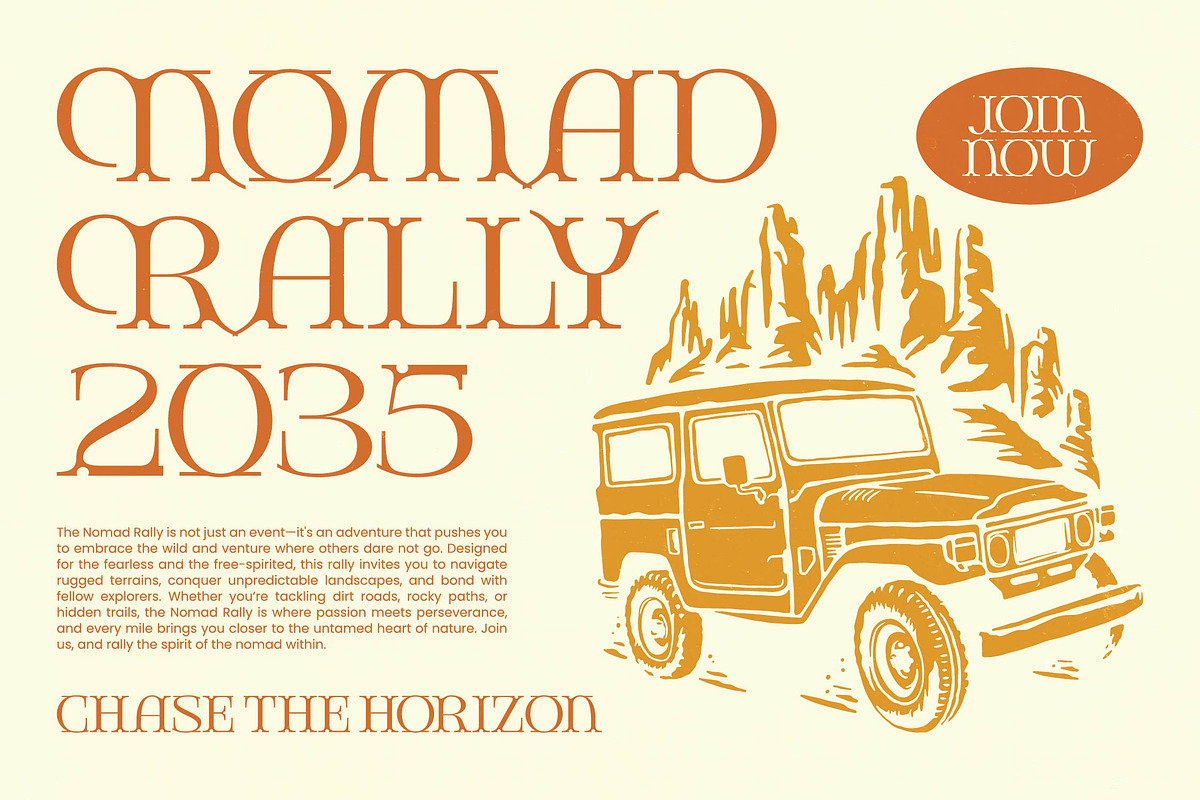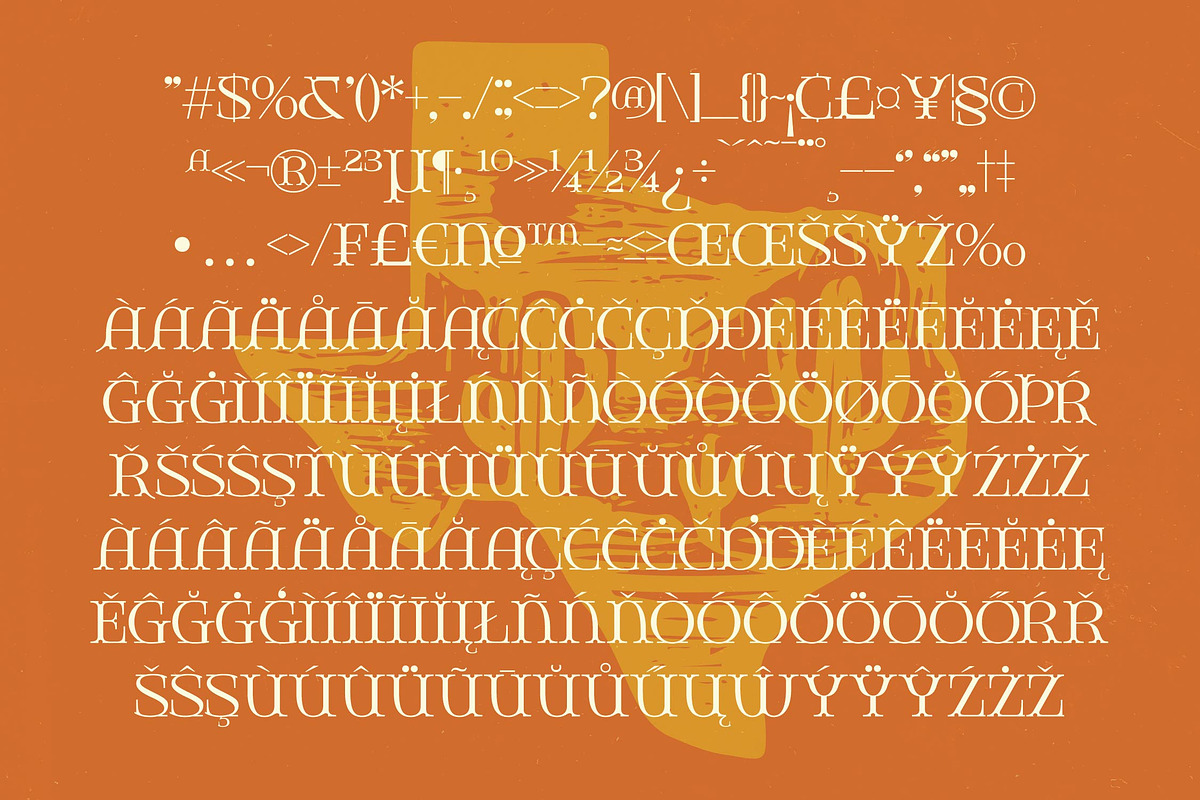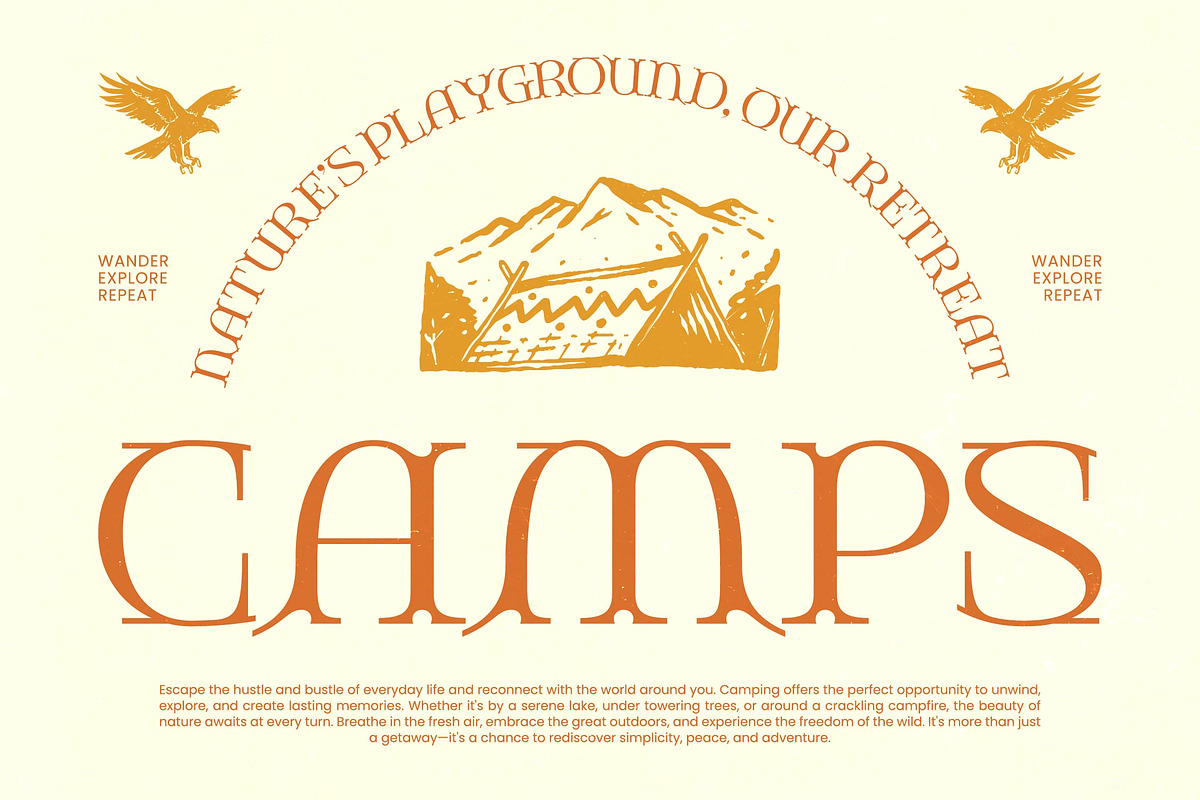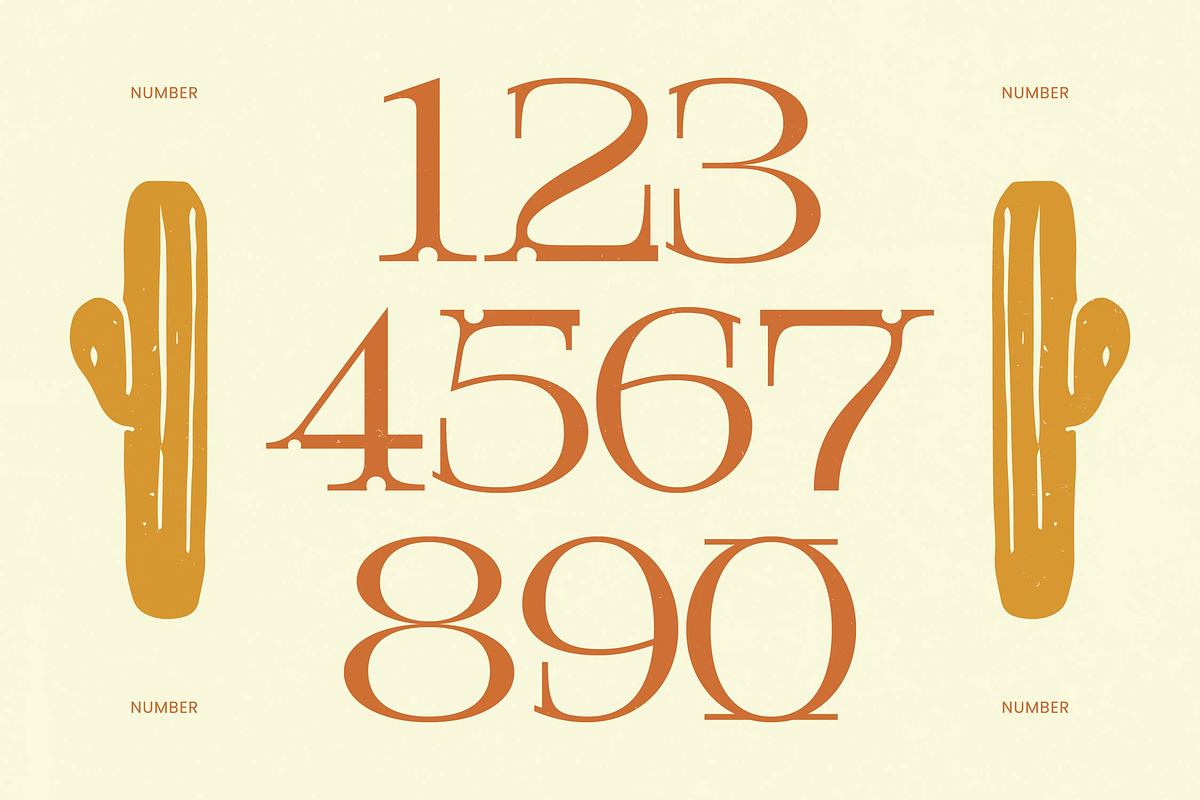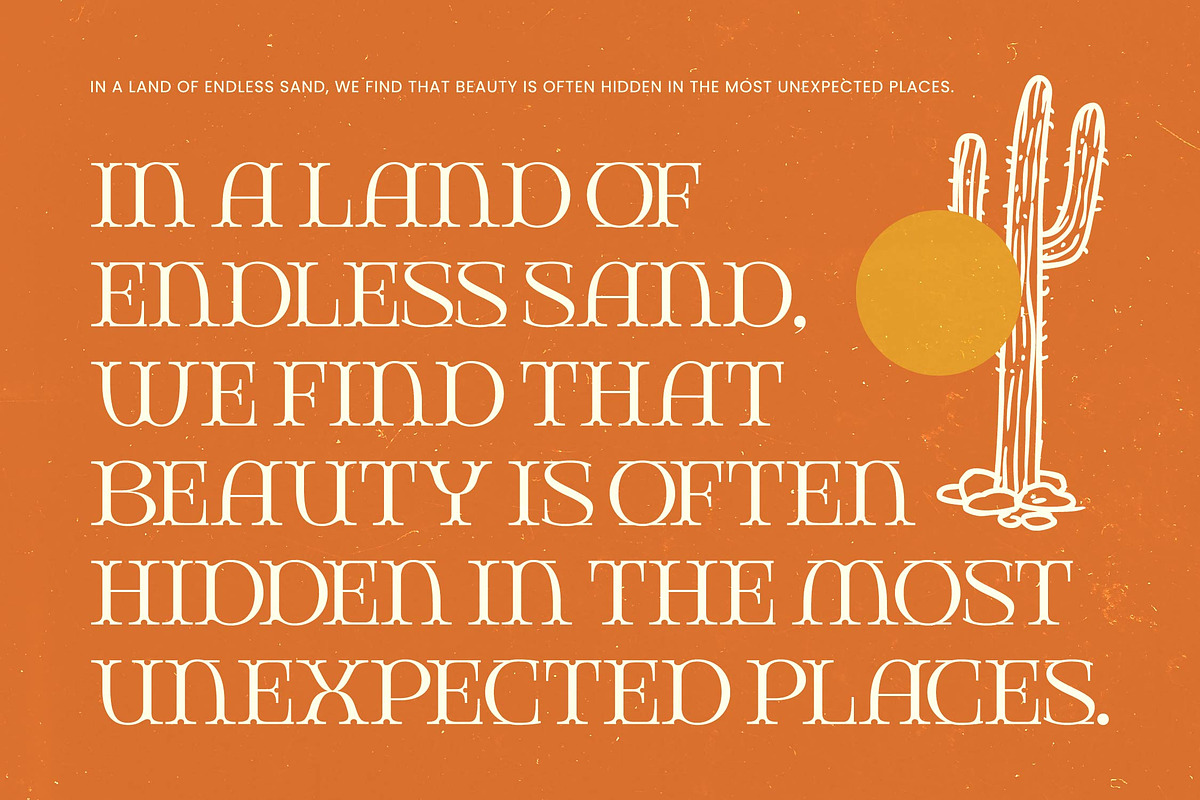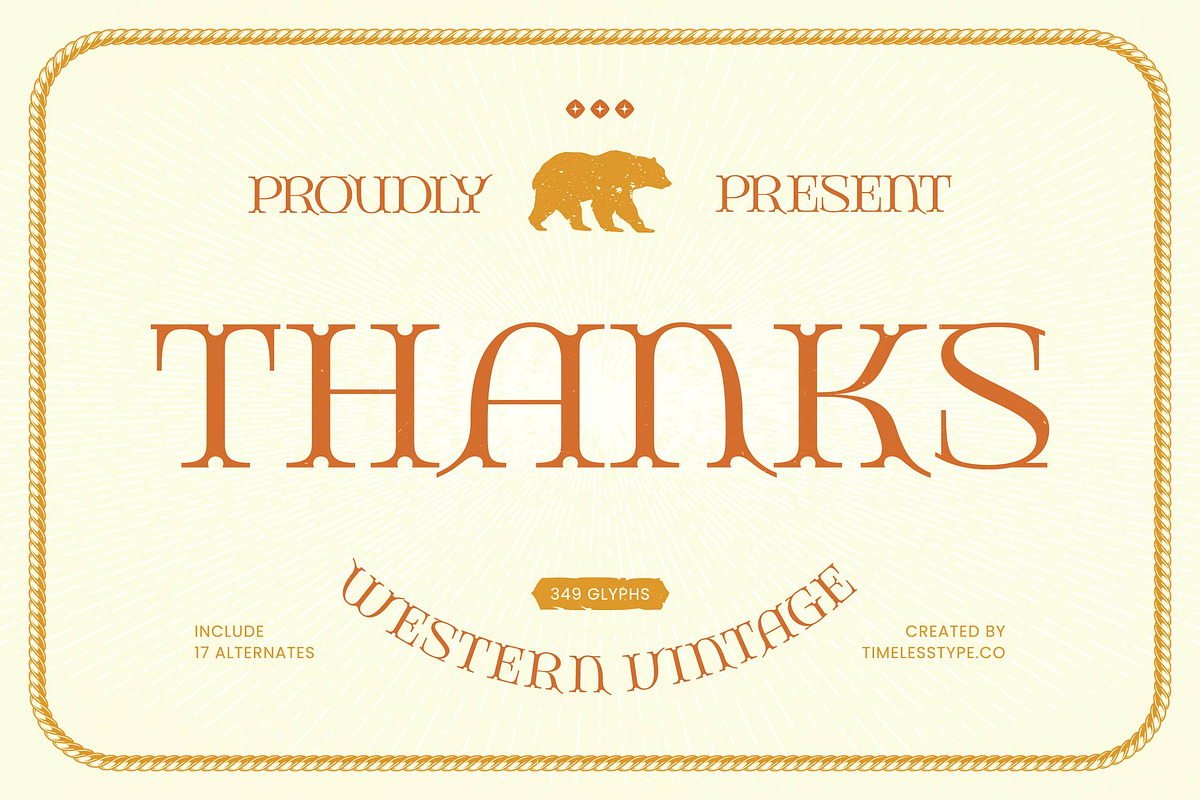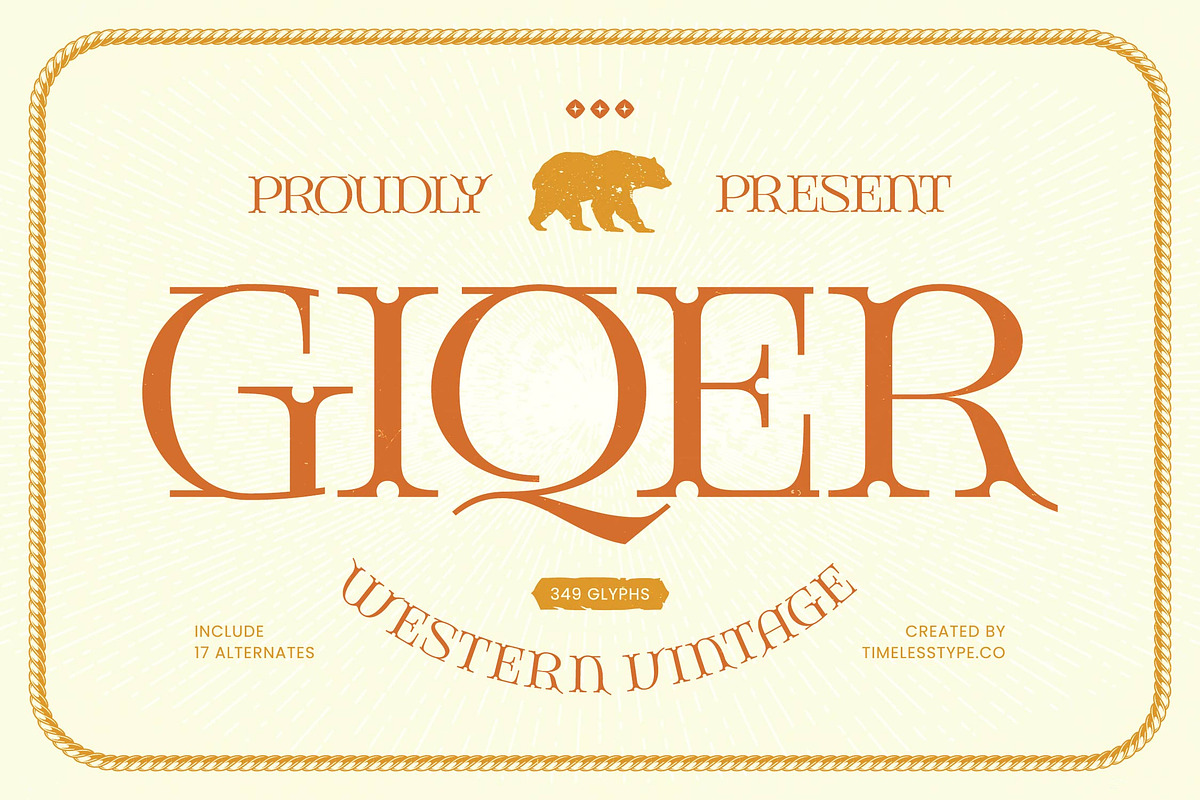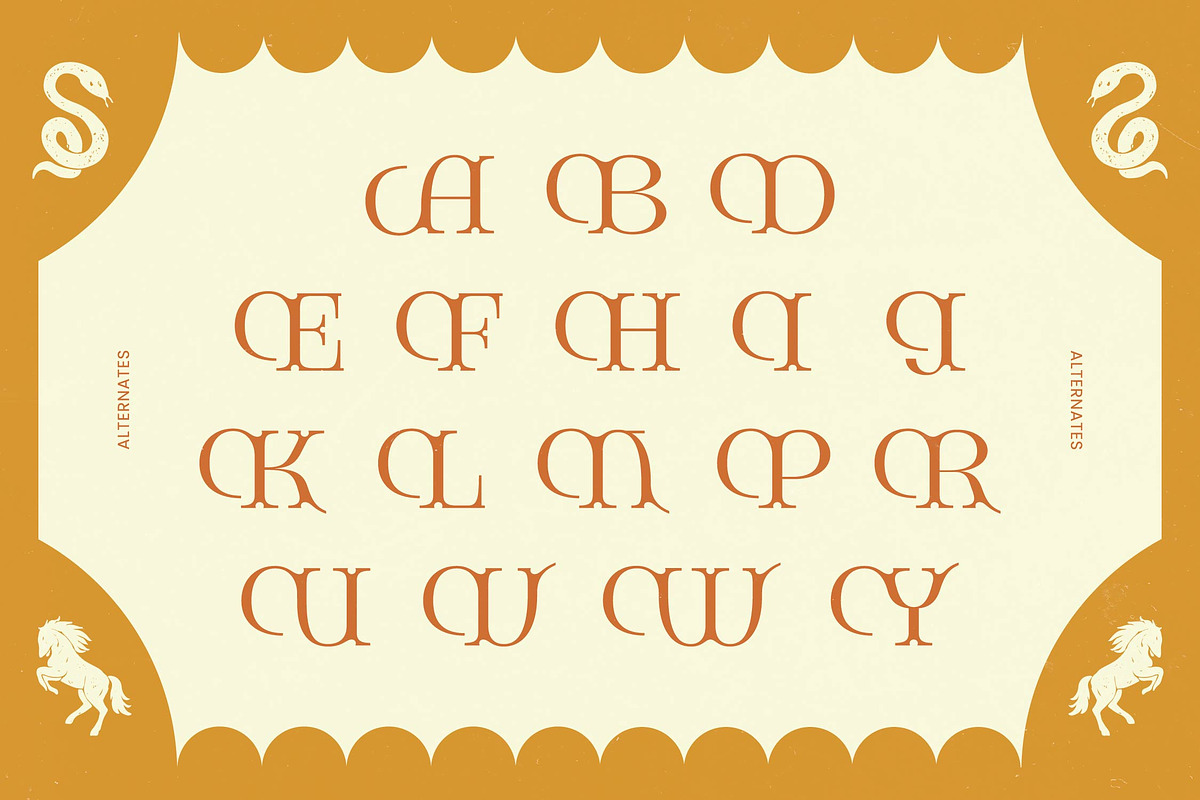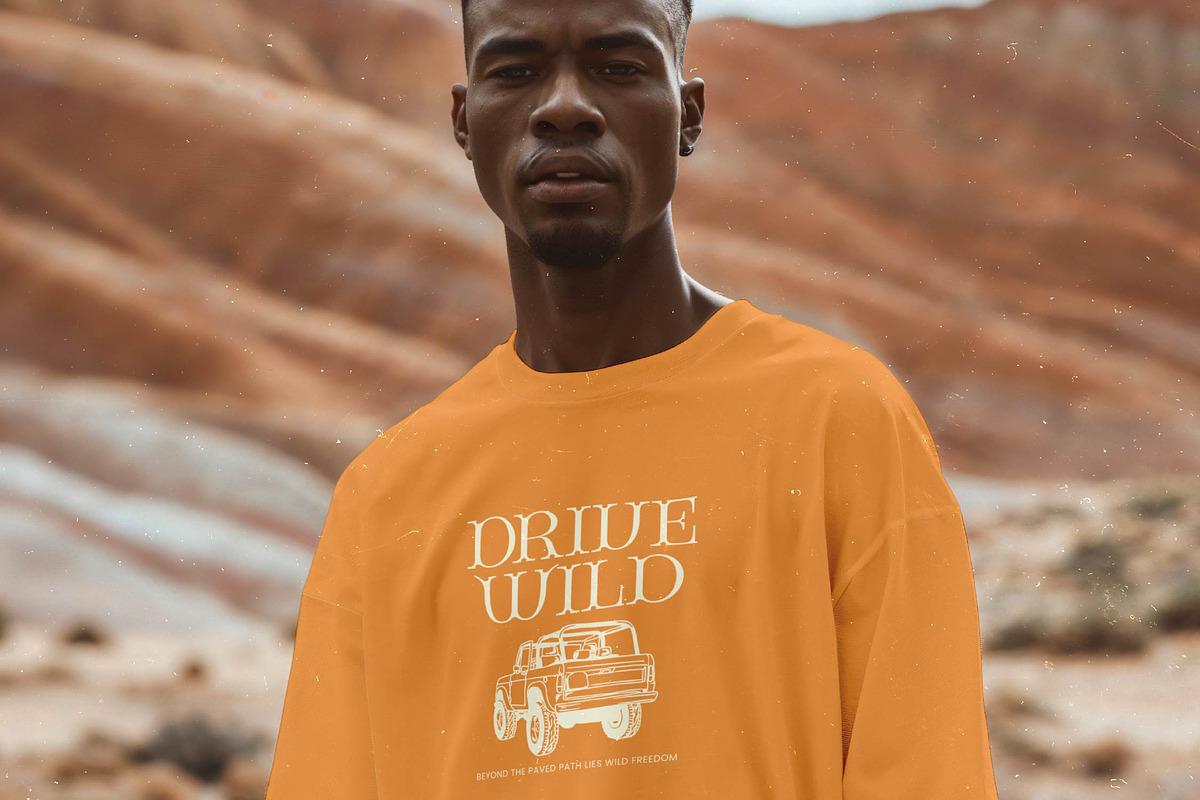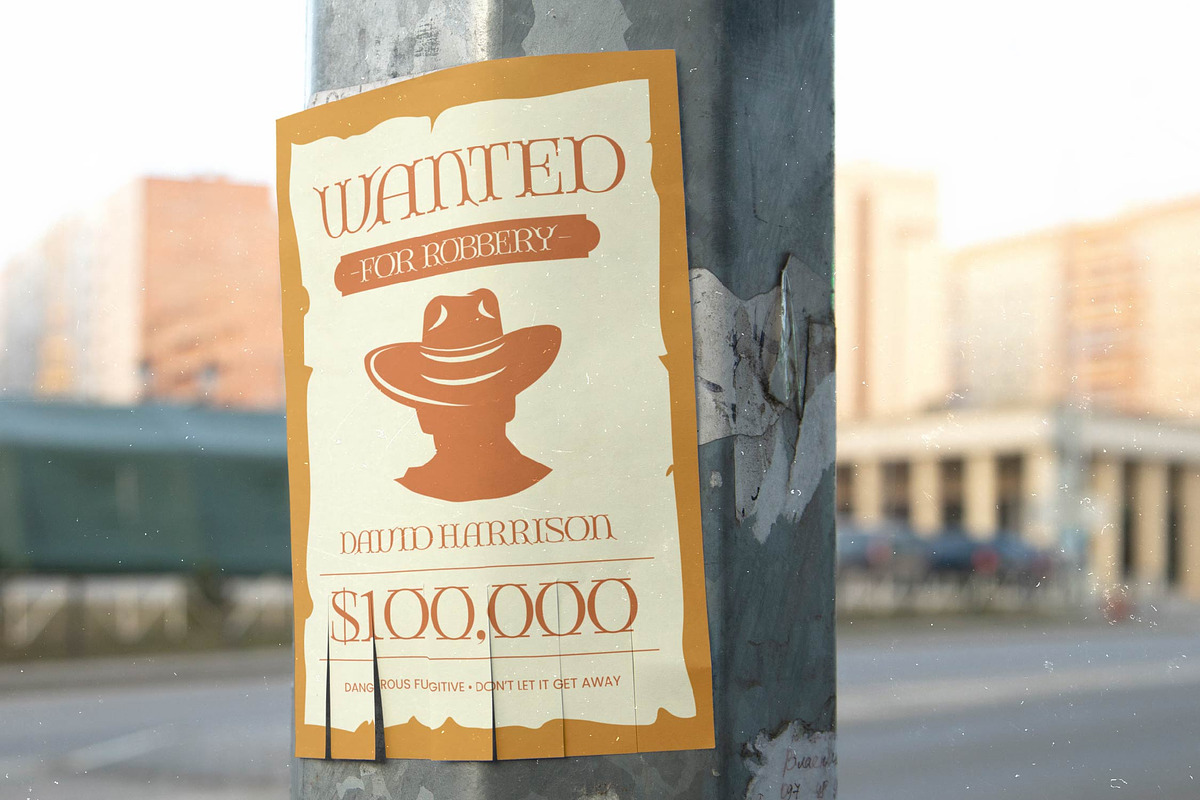
Giqer Western Vintage Serif
Capture the spirit of the high desert and the refined soul of the frontier with Giqer. This typeface bridges the gap between rugged heritage and modern editorial elegance with effortless grace.
Inspired by the timeless aesthetic of the American West, this typeface draws from vintage signage and classic apothecary labels. It evokes the feeling of vast landscapes and sun-drenched canyons, translated into a contemporary letterform that demands attention.
With its razor-sharp serifs and dramatic weight distribution, this modern serif display provides instant luxury typography for any project. Its high-contrast serif design ensures a massive branding impact, making it an essential editorial font for designers who crave a distinctive personality.
Riding the current modern serif trend, this typeface meets the demand for character-driven typography that feels both authentic and avant-garde. It is a standout choice among editorial display fonts, offering a unique silhouette that defies the standard minimalist aesthetic.
Perfectly suited for high-end logo design and comprehensive branding systems, this font shines in editorial layouts and luxury packaging. It also adds a touch of rugged romance to wedding stationery and high-concept fashion lookbooks.
This comprehensive package includes a variety of ligatures and alternates to customize your layouts. It also features extensive multilingual support and international characters to serve a global design audience across its expansive glyph set.
Numerals
Punctuations (OpenType Standard)
Accents (Multilingual Characters)
Ligatures and Alternative Style Stylistic Set